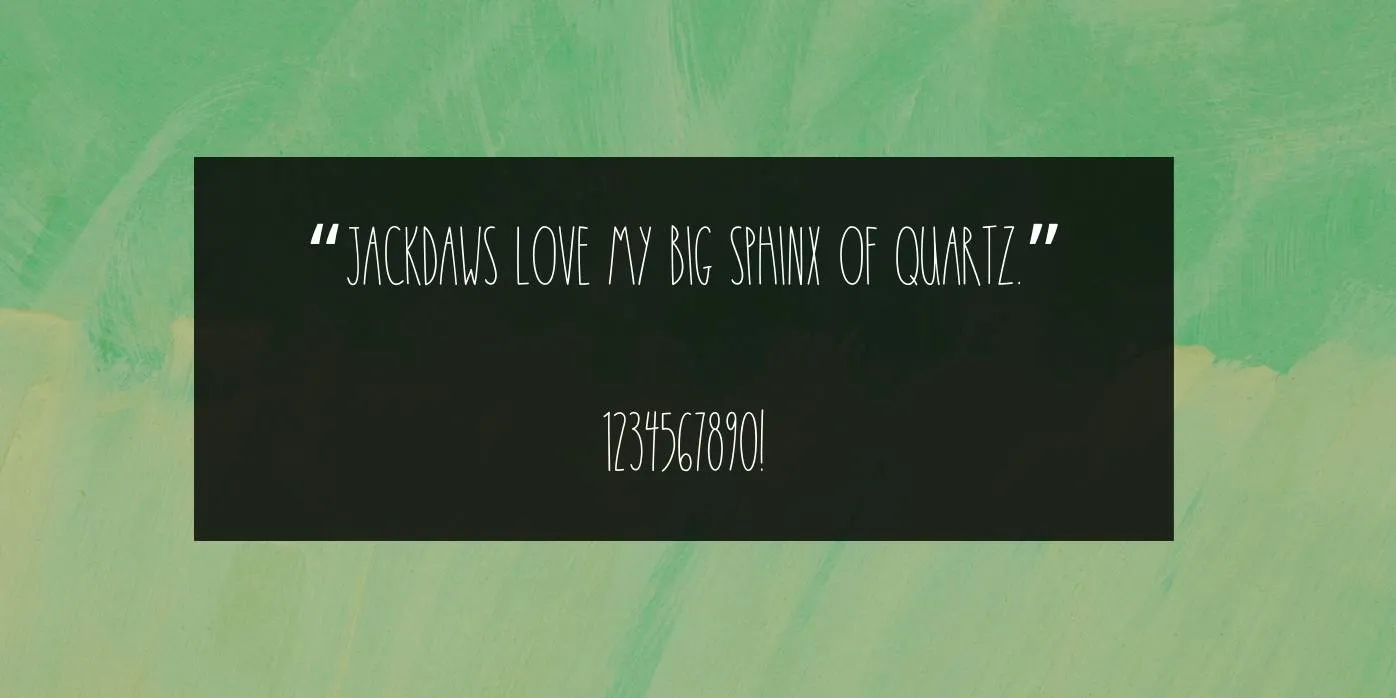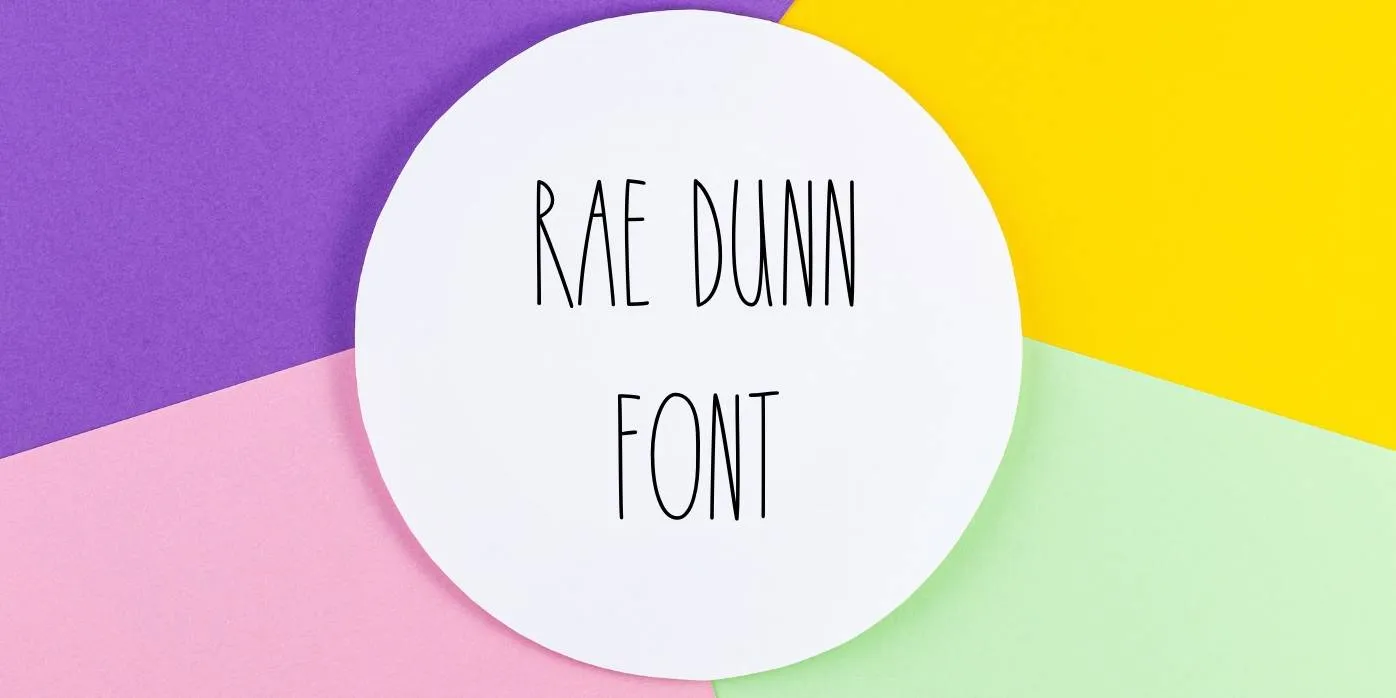
Rae Dunn Font
Here we are going to introduce a stunning typeface known as Rae Dunn Font. This typeface belongs to the Handwritten font family. It was developed by Rae Dunn. This stylish font is a simple yet beautiful handwritten font.
It includes uppercase and lowercase letters, numbers, and punctuation marks. The Rae Dunn Typeface is perfect for branding, logos, invitations, quotes, and more. It is very famous because of its unique and stylish look. This amazing font is available in two styles: Regular and Bold.